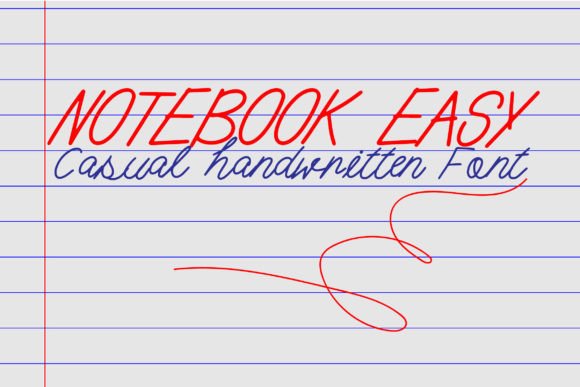
Prepare yourself to be captivated by Notebook Easy Font, a breathtaking script font family that radiates unmatched elegance and charm. Its delicate and flowing strokes evoke a sense of grace and fluidity, perfectly capturing the essence of sophistication. Created by the talented KtwoP, this font is a true masterpiece that will transform your designs into works of art.
Experience the allure of Notebook Easy's timeless style, a perfect blend of classic beauty and modern flair. Let your imagination soar as you explore the endless possibilities of this versatile font, ideal for a multitude of projects. Whether you're designing captivating logos, heartwarming invitations, or stunning social media posts, Notebook Easy will effortlessly elevate your creations, leaving a lasting impression on your audience.
Immerse yourself in the splendor of Notebook Easy's meticulously crafted swashes and glyphs. With its PUA encoding, you can seamlessly access these delightful embellishments, adding an extra layer of intricacy and visual interest to your designs. Unleash your creativity and let Notebook Easy guide you towards design excellence.
Welcome to the world of Notebook Easy Font, where refinement meets innovation. Its enchanting script style will add a touch of sophistication and allure to any project, captivating your audience and leaving them spellbound. Embrace the elegance of Notebook Easy and witness the transformation of your designs into timeless masterpieces.